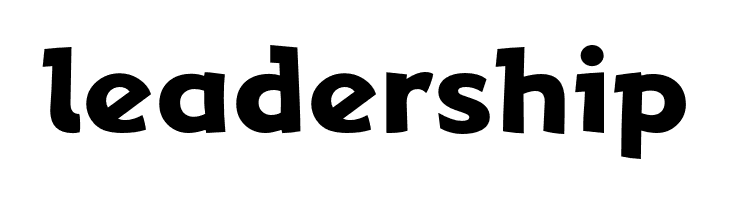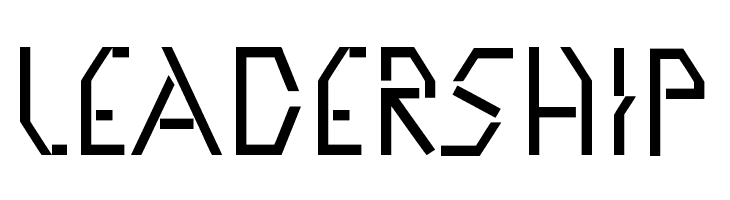
• Adventure Invisible
A bold, cursive font with a dynamic and flowing style.
• Adventure Magazine
A bold, brush-style font with dynamic, hand-drawn strokes.
• Adventure Strike FREE
A bold, geometric font with angular, futuristic styling.
• Adventure Subtitles
A bold, modern font with geometric and futuristic design elements.
• Adventurer Regular
A bold, three-dimensional font with a dynamic and adventurous style.
• AdventureScript
A dynamic and flowing script font with elegant, cursive letterforms.
• AdventureScript
A bold, flowing script font with elegant curves and dynamic movement.
• AdventureStrikeFREE
A bold, geometric font with a futuristic and adventurous style.
• Adventuring
A bold, playful font with dynamic and slightly irregular letterforms.
• Adventuro
A bold, high-contrast serif font with a classic and adventurous style.
• AdvenTuRos
A bold, brush-style font with an adventurous and expressive character.
• Advice Quotes
A bold, expressive script font with flowing, cursive letterforms.
• Advice Quotes
A bold, expressive script font with a lively, handwritten style.
• Advisor Personal Use Regular
A sophisticated, elegant handwritten font with fluid, continuous strokes.
• AdvisorPersonalUse-Regular
A graceful script font with fluid, cursive strokes and elegant connections.
• Advocate Script
A bold, flowing script font with elegant curves and connected strokes.
• Advokat Modern
A bold, modern font with sharp, angular lines and a unique flair.
• Aedesty Personal Use
A lively and expressive handwritten font with dynamic strokes and a playful style.
• Aegyptus Bold
A bold, modern sans-serif font with clean lines and balanced spacing.
• Aeiou Regular
A playful, handwritten font with rounded, irregular letterforms.
• Aella FREE